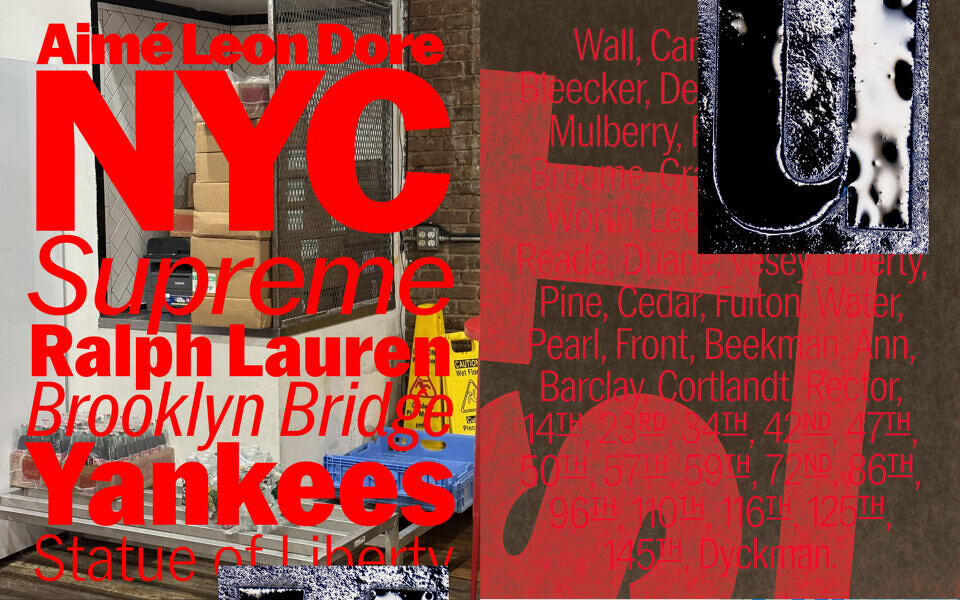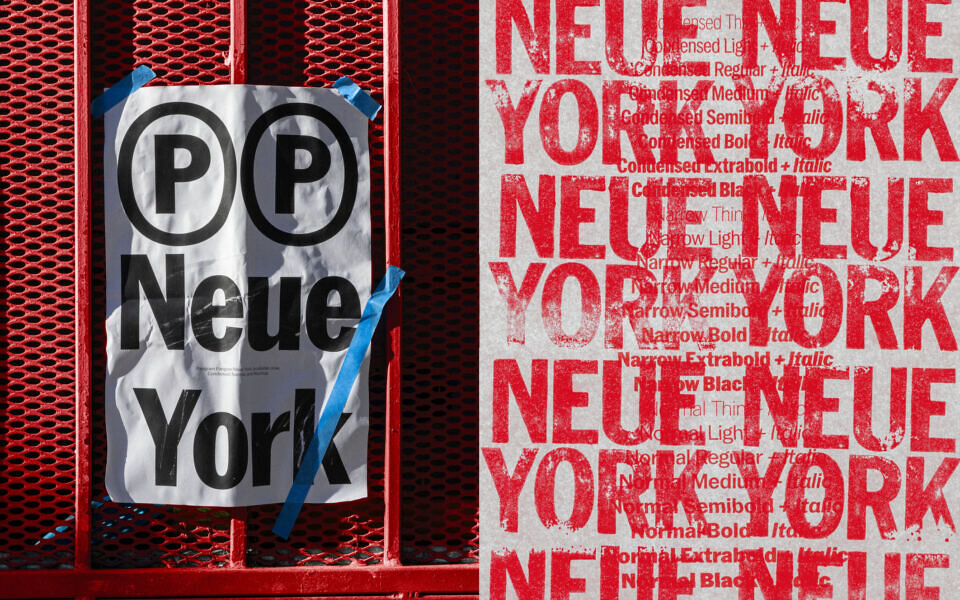
PP Neue York is a sans serif shaped by the city’s layered visual noise: the bodega awnings, the worn American gothics, the mosaic station tiles, the endless rhythm of Avenues and Streets. The goal was to capture all of that and fold it into a contemporary type system that still carries a vintage pulse: clean in structure, functional in spirit, but gently rough around the edges, like something that has lived out in the open. Its three widths (Normal, Narrow and Condensed) shift in density the way the city shifts block by block.
Neue York is built as a 48-style family: 8 weights from Thin to Black, each with its own italic, spread across three widths. The widths were drawn with deliberately different x-heights to suit different roles, the Condensed is taller and tighter for headlines, while the Normal has proportions better suited for text and continuous reading.